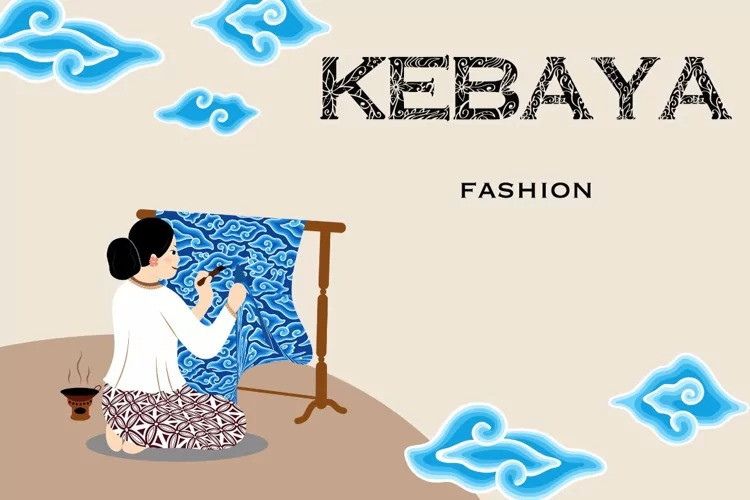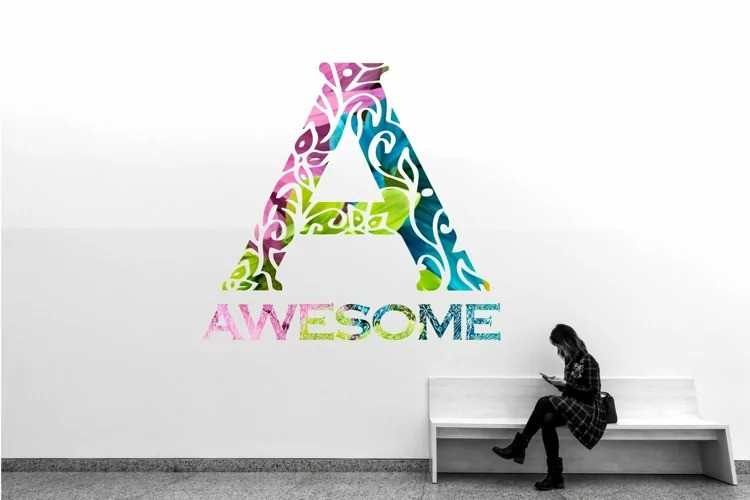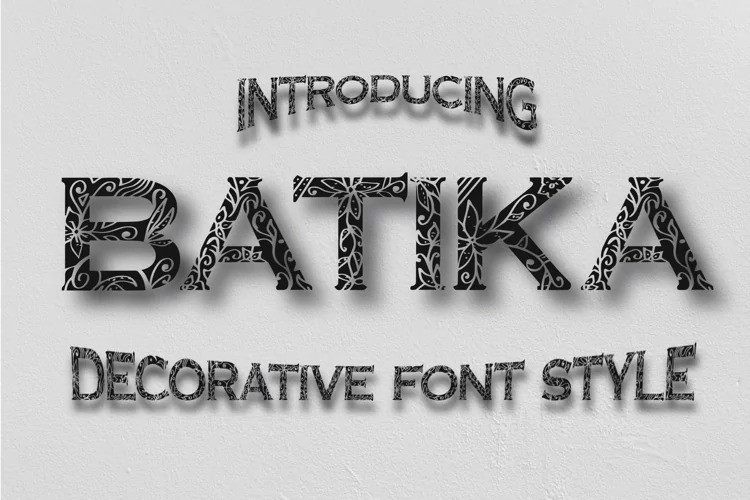
Batika Font
Batika Display Font is a beautiful and detailed decorative font. It has a classy, elegant and modern look that can be used for logos, branding, invitations, stationery, wedding designs, social media posts and much more!